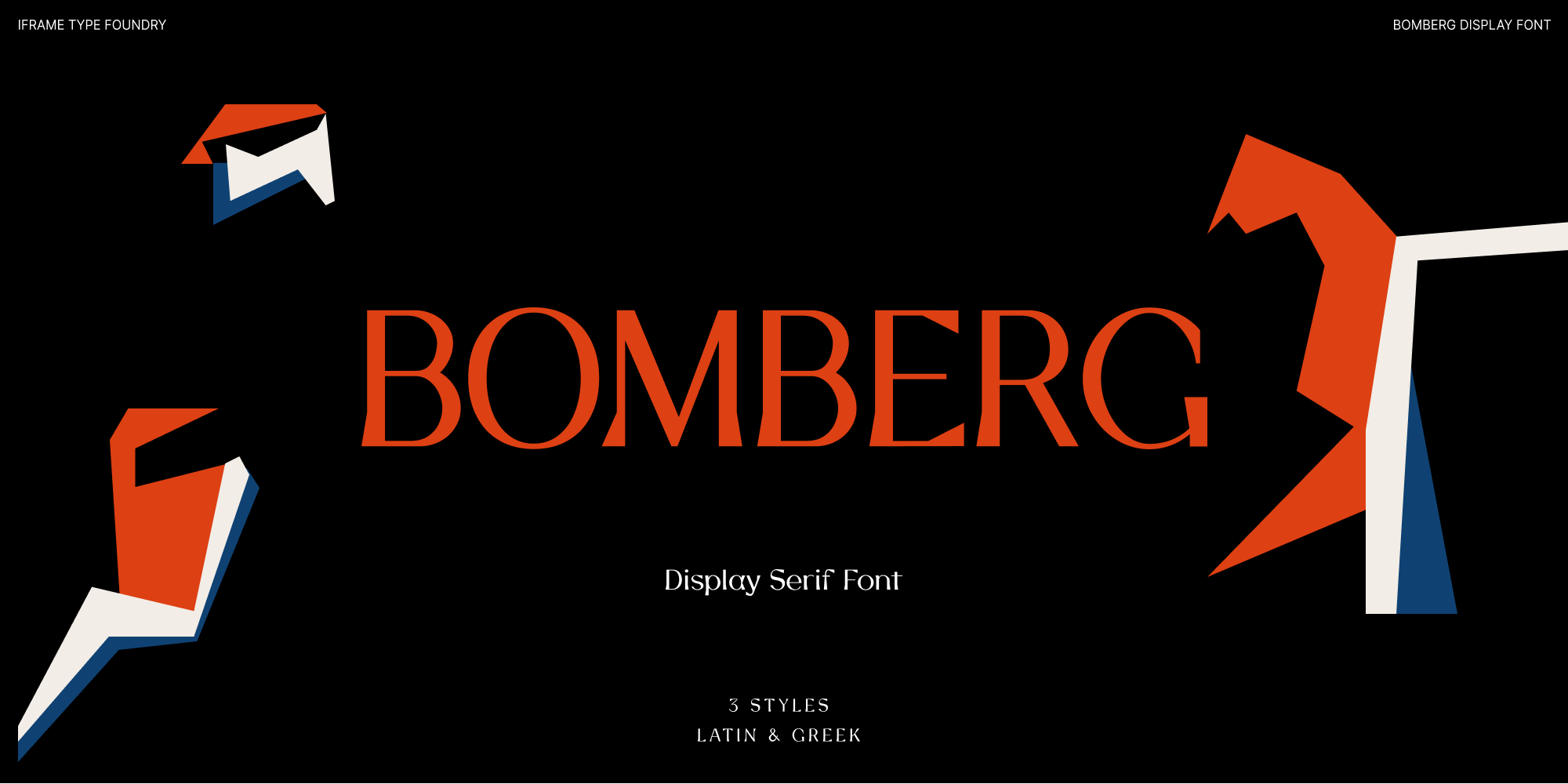
Bomberg Display Serif Font is ideal for luxury magazine headlines, high-end fashion branding, premium product packaging, sophisticated editorial layouts, exclusive event invitations, upscale restaurant menus, boutique hotel materials, fine art exhibition catalogs, luxury real estate marketing, and prestigious corporate communications. This distinguished display serif brings commanding elegance and editorial sophistication to premium design applications.
What makes Bomberg Display Serif Font so exciting is its powerful combination of dramatic visual impact and refined typographic sophistication that commands immediate attention while maintaining exceptional readability. The font features bold, high-contrast letterforms with distinctive serif construction and dramatic thick-to-thin stroke variations that create stunning visual hierarchy and editorial authority. Its carefully crafted proportions include extended x-heights, precise optical spacing, and sophisticated character relationships that ensure maximum impact at large sizes while preserving the refined elegance expected in luxury applications. The commanding presence and editorial heritage make Bomberg Display Serif perfect for brands seeking to project authority, exclusivity, and sophisticated taste.
The Bomberg Display Serif Font family includes comprehensive weights and styles: Light, Regular, Medium, Bold, and Black variations, each available in Roman and Italic cuts. The extensive character set encompasses complete Latin alphabet support with luxury typography features, old-style and lining figures, small caps, ligatures, swash characters, and broad international language coverage. Professional features include contextual alternates that enhance display impact, stylistic sets for different aesthetic approaches, expert spacing for headline applications, and sophisticated character details that maintain quality at all sizes.
Whether you're creating luxury brand communications, high-end editorial content, or exclusive event materials, Bomberg Display Serif Font Free Download provides the commanding typography that elevates premium design projects to the highest standards of sophistication. Its exceptional visual impact makes it perfect for headlines, logos, and display applications that demand immediate attention and lasting impression, while its refined character ensures authentic luxury appeal. The font's combination of editorial authority and luxury aesthetics makes it invaluable for designers working with premium brands, luxury publications, and any project requiring typography that communicates exclusivity, sophistication, and uncompromising quality standards.